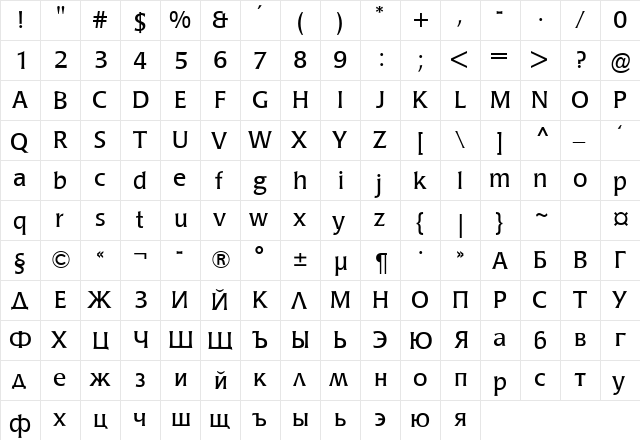
ft27 Regular
Design Context for ft27 Typeface
ft27 is a composed and adaptable typeface that performs quietly and consistently across a wide range of design contexts.